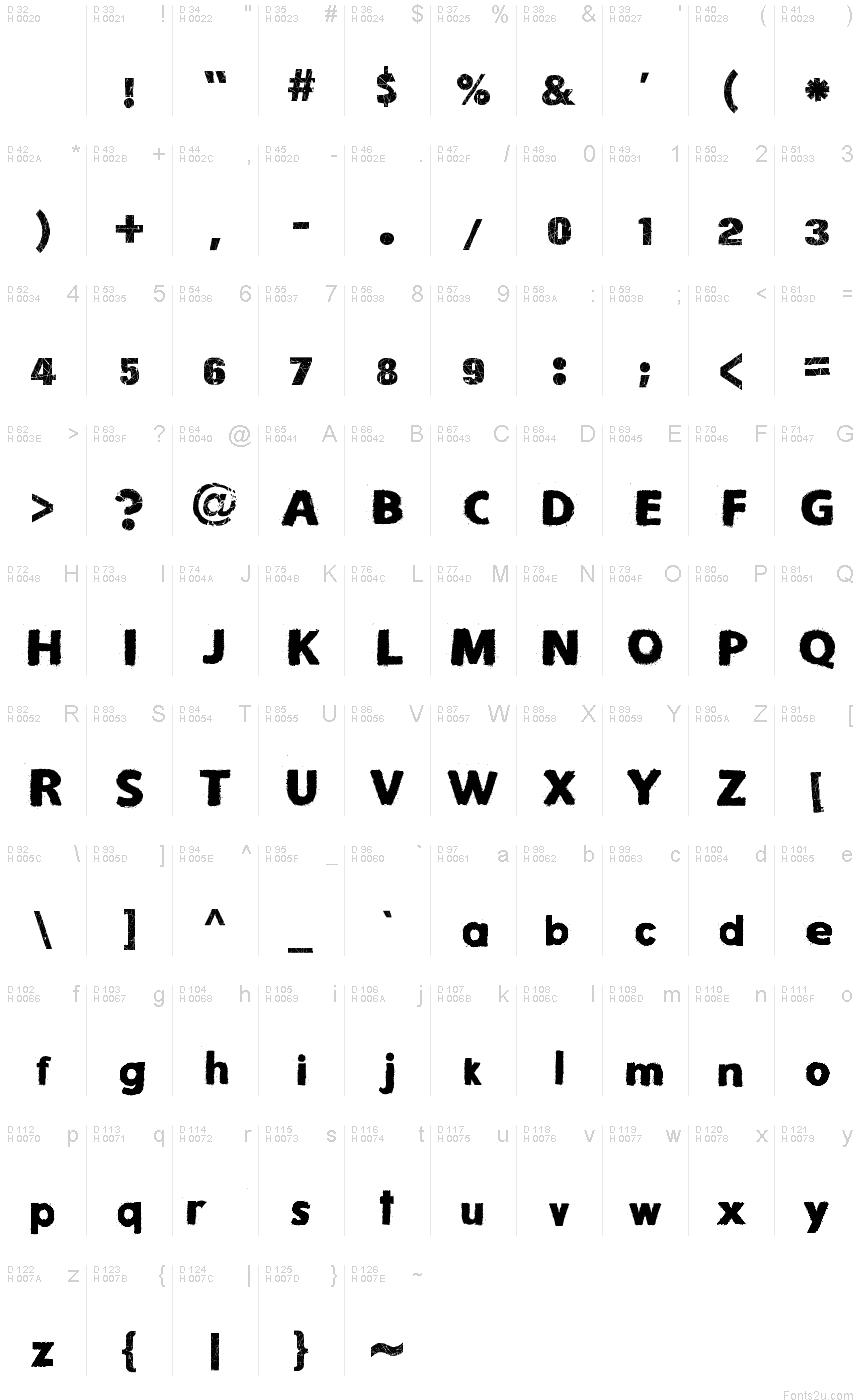
Snow Times by Galdino Otten is a free eroded display font with oversized, weighty letters and a rough printed surface. Its broad forms crowd close together, creating a dense silhouette that feels cut from an old poster. The uneven edges look genuinely battered.
A concert poster is its most convincing setting, especially for punk, garage rock, or noisy indie bills. That same hard-used texture suits album packaging, skate merchandise, and distressed bar signage, where clean lettering would feel too polished. In those projects, the letters can become part of the printed wear itself, acting almost like a scuffed stamp rather than neutral type.